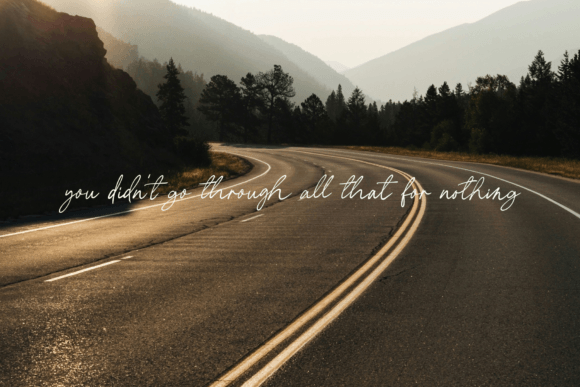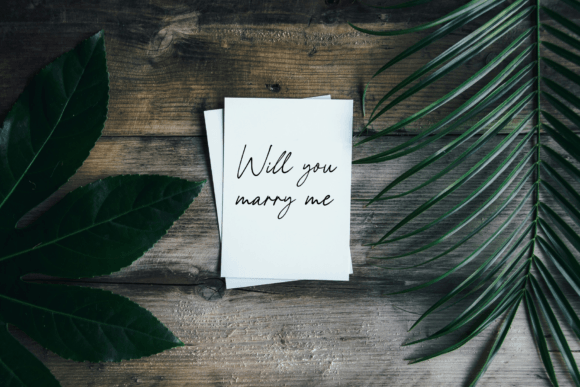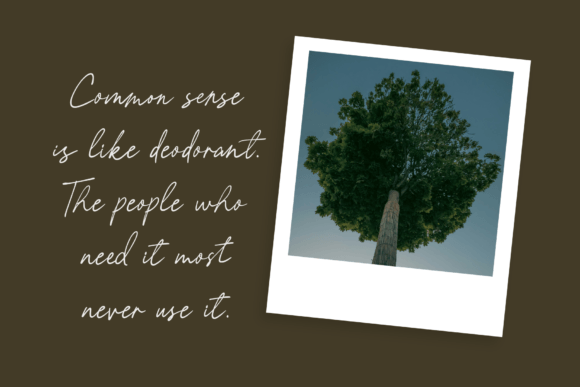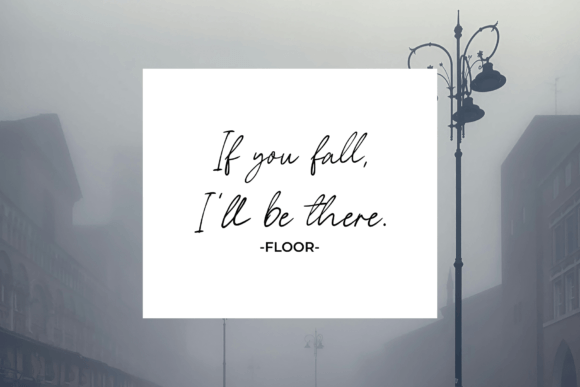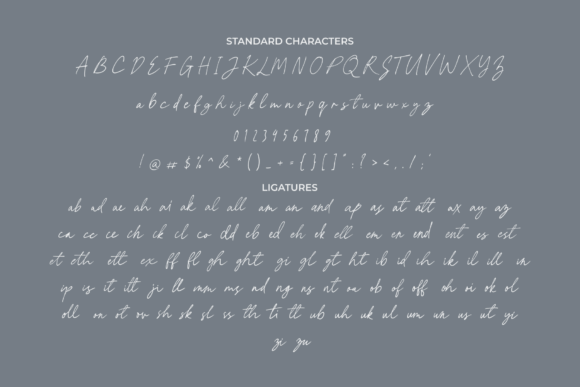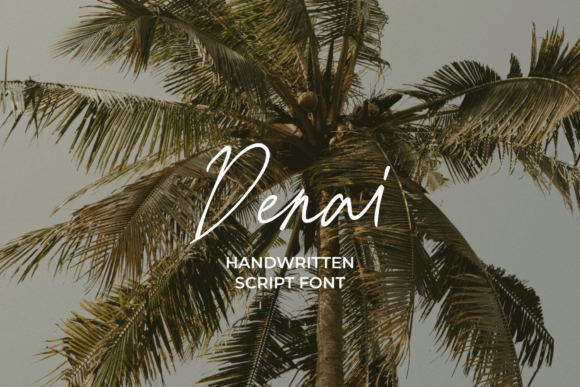
Introducing Denai Font: Elevate Your Designs with Elegance and Charm
Have you ever been in the middle of a design project, and suddenly, you’re stuck on finding the perfect font? I recall a recent experience where I was working on a wedding invitation design, and my client requested a font that exuded warmth, intimacy, and sophistication. After hours of searching, I stumbled upon Denai Font, a beautifully crafted handwritten script font that instantly captured the essence of the occasion. In this article, I’ll share my journey with Denai, its features, and how you can make the most of this stunning font in your designs.
The Denai Difference: A Perfect Blend of Elegance and Charm
Denai Font is a handwritten script font that adds a personal touch to any project. Its elegance and charm make it perfect for designing wedding invitations, crafting heartfelt notes, or creating eye-catching social media graphics. With Denai, you can:
- ✨ Emulate the warmth and intimacy of personal handwriting
- ✅ Create versatile designs for cards, posters, quotes, and more
- ✅ Enjoy smooth and organic strokes that bring text to life
Honest Review: The Good, the Great, and the Quirks
As a designer, I appreciate fonts that offer flexibility and character. Here’s my honest review of Denai Font:
- ✅ The natural flow of the strokes, which gives the text a lively feel
- ✅ The versatility of the font, making it suitable for various design projects
- ✅ The elegant and sophisticated look that elevates any design
- ✨ The font’s ability to evoke emotions and add a personal touch to the text
While Denai Font is exceptional, there are a few minor considerations:
- ⚠️ Some letters may require manual kerning for optimal spacing
- 🤔 The font’s handwritten style might not be suitable for very formal or corporate designs
The Story Behind Denai Font: Designer Inspiration
Denai Font was inspired by the serene beauty of tropical landscapes. Imagine swaying palm trees, gentle ocean breezes, and warm sunshine – that’s the essence of Denai. The designer aimed to capture the elegance and charm of handwritten script fonts, while infusing it with a modern twist. The result is a font that’s both timeless and versatile.
| Q: What type of projects is Denai Font best suited for? | A: Denai Font is perfect for designs that require a personal touch, such as wedding invitations, greeting cards, and social media graphics. |
| Q: Is Denai Font available in different weights or styles? | A: Currently, Denai Font is available in a single weight. However, the designer may release additional weights or styles in the future. |
Denai Font is a beautiful addition to any design project. Its elegance, charm, and versatility make it a valuable asset for designers, crafters, and creative hobbyists. With its natural flow, smooth strokes, and OpenType features, Denai Font is sure to elevate your designs and add a personal touch to your work.